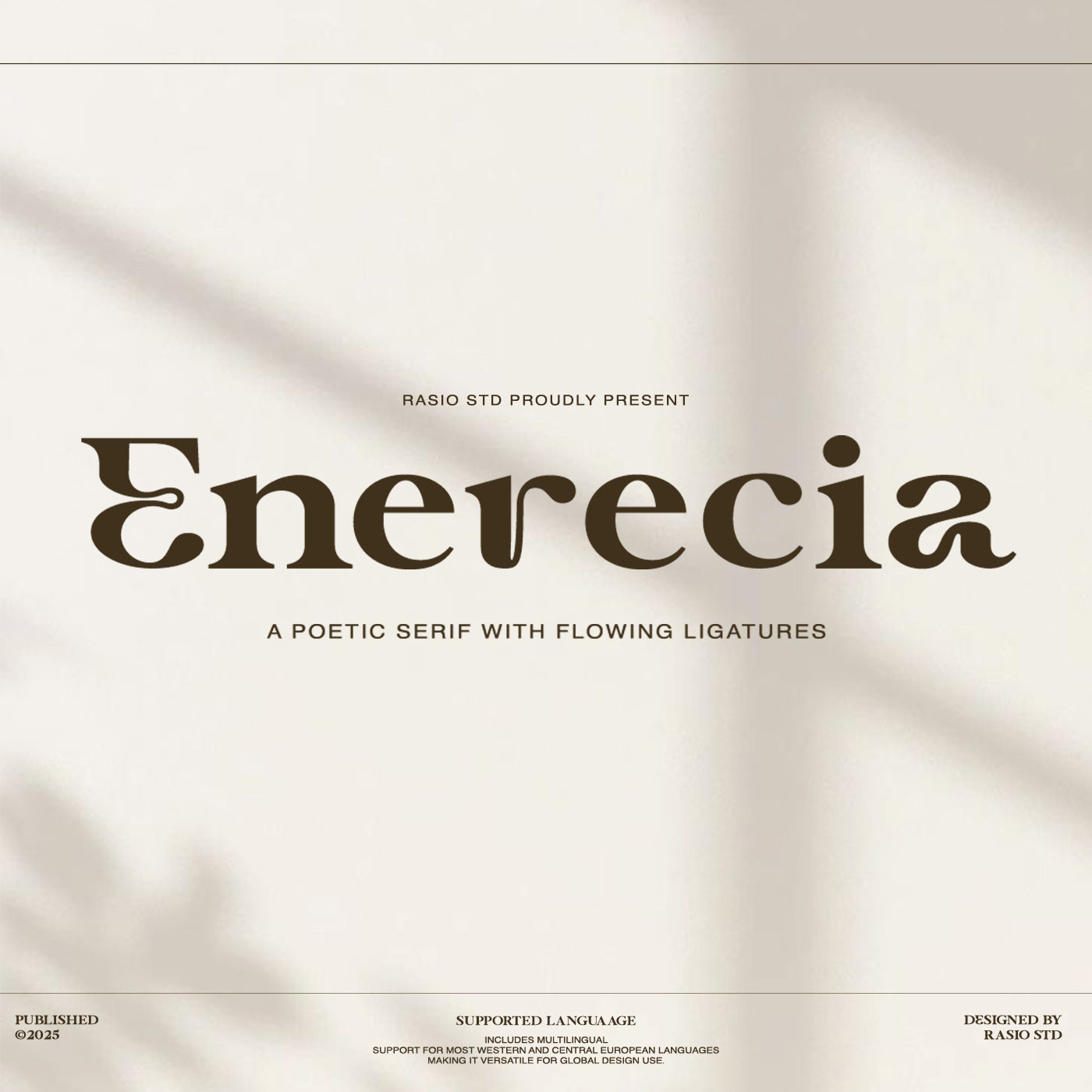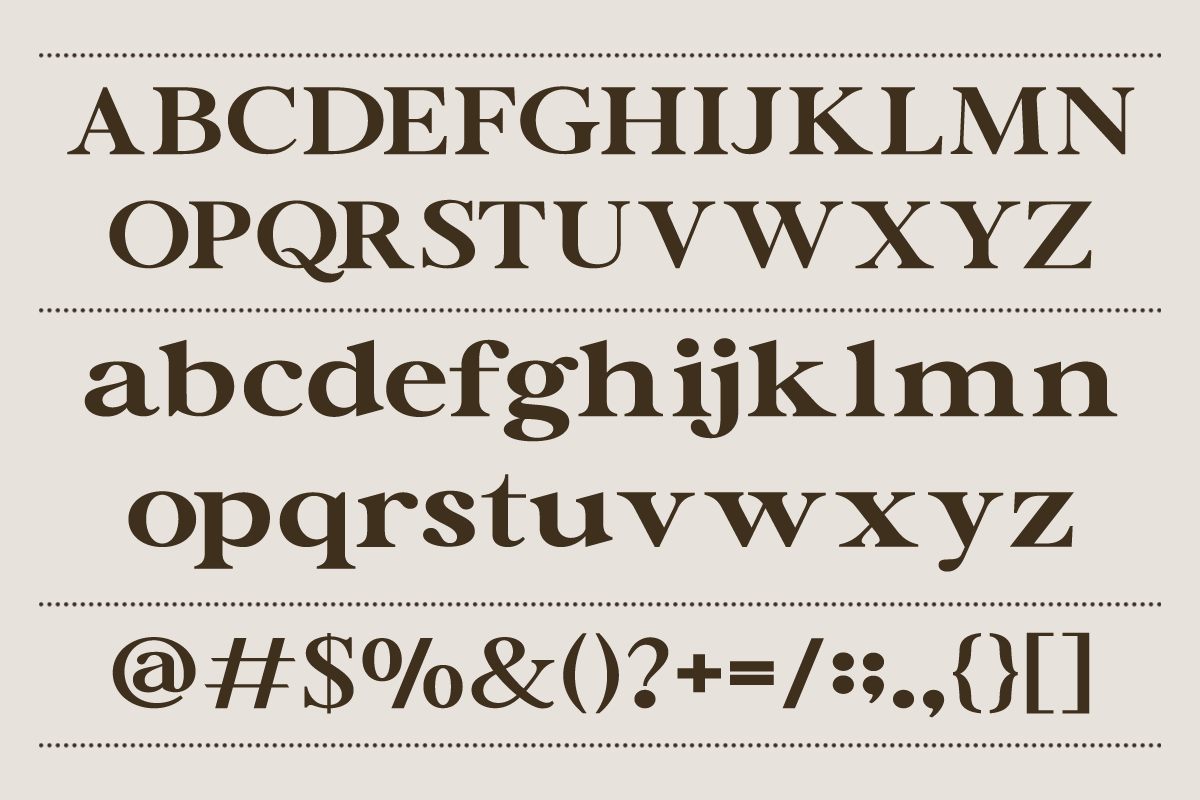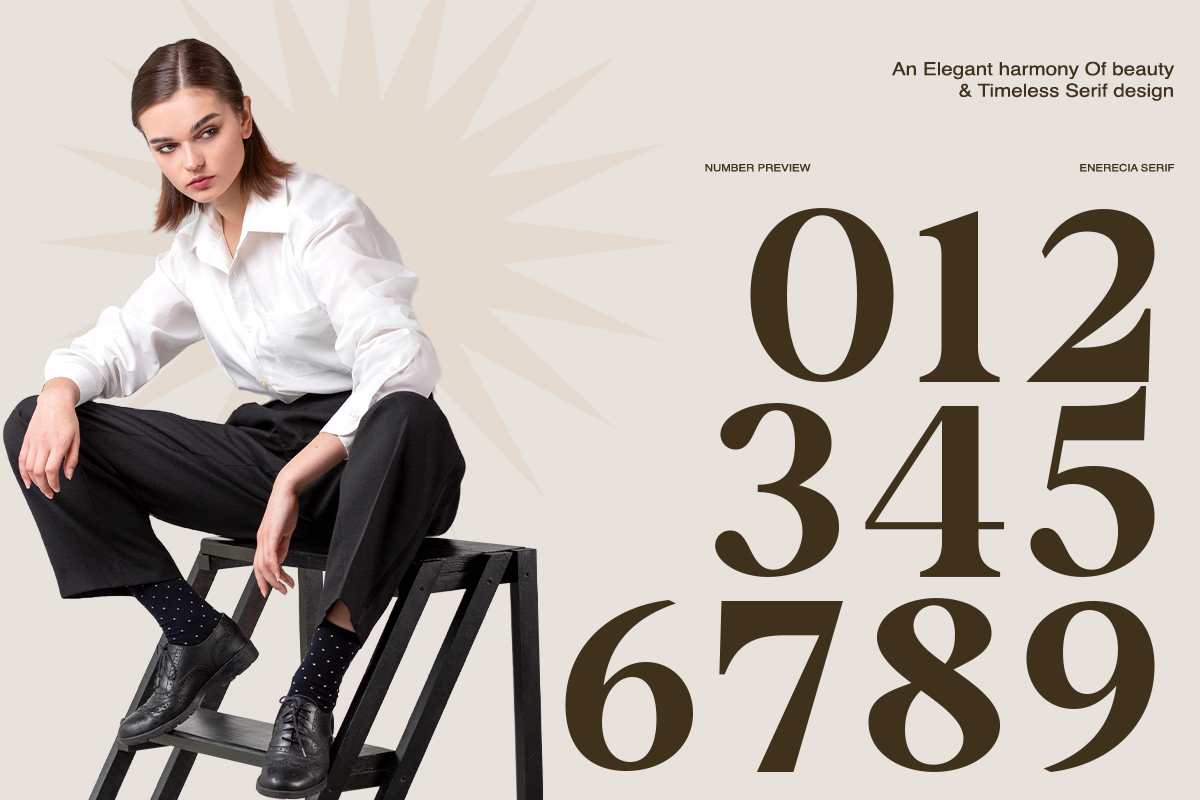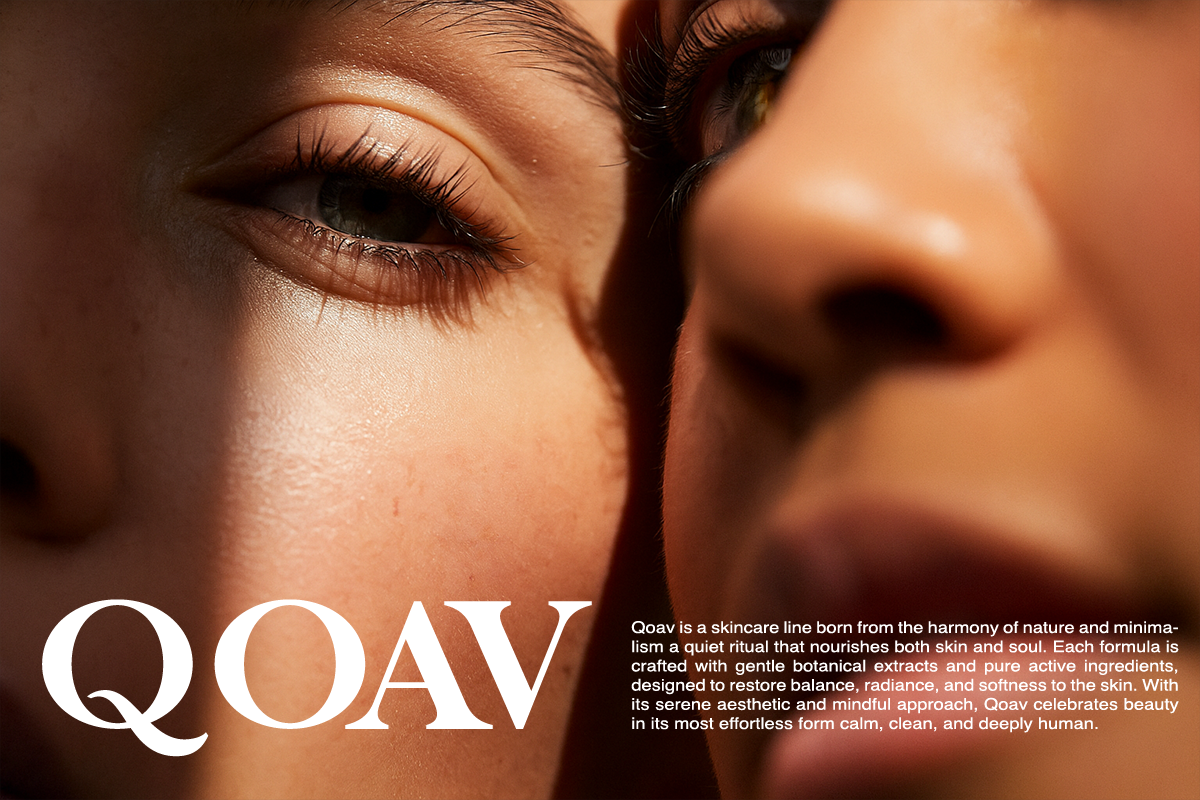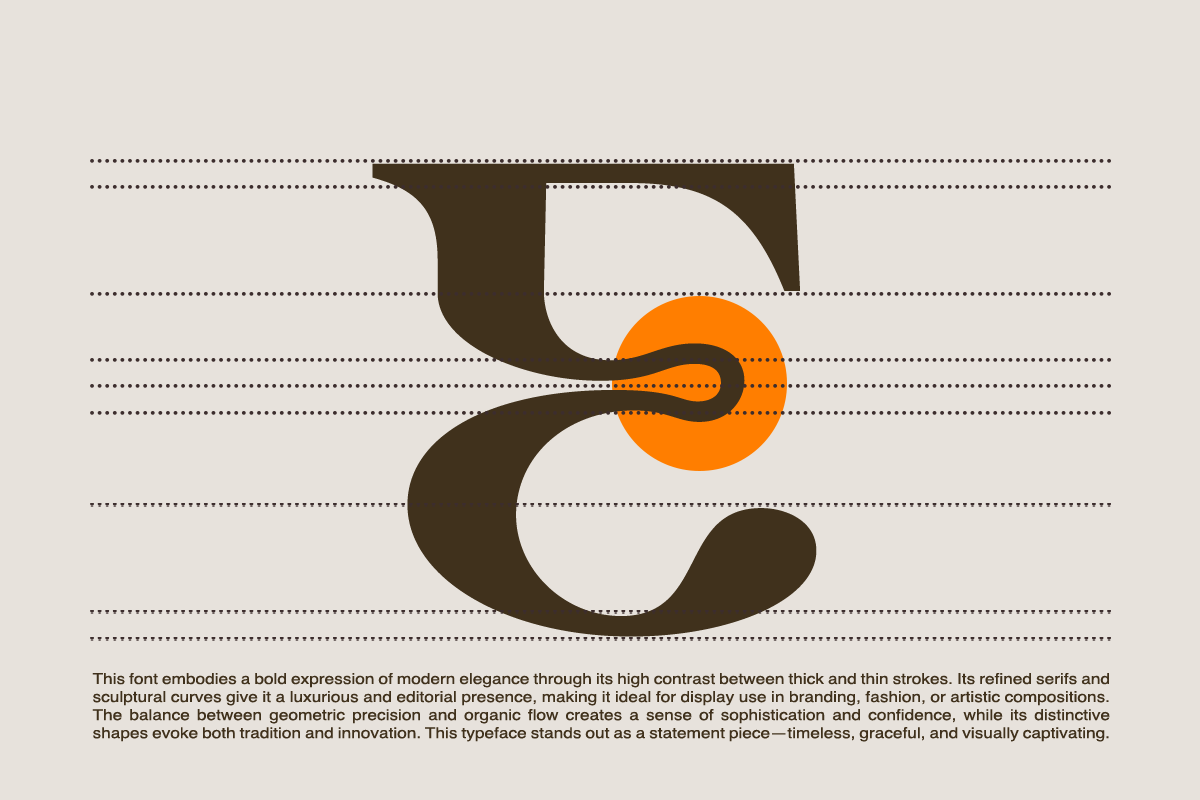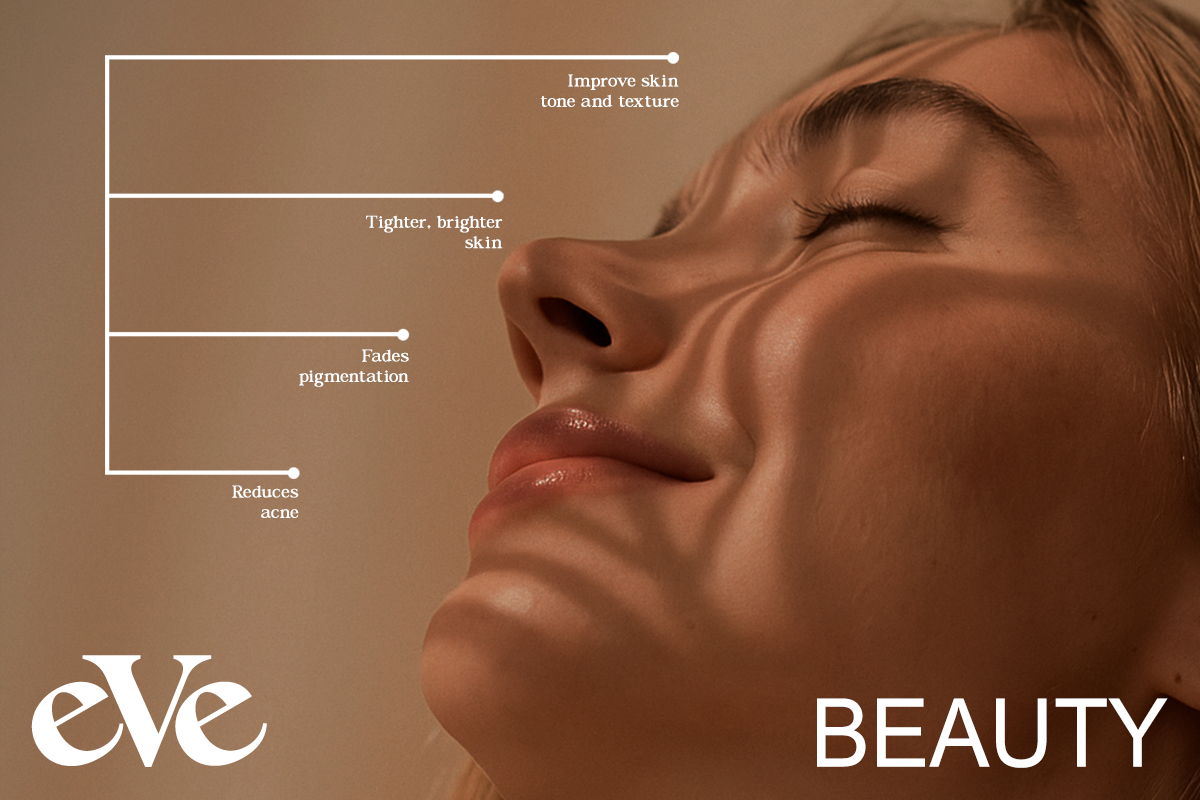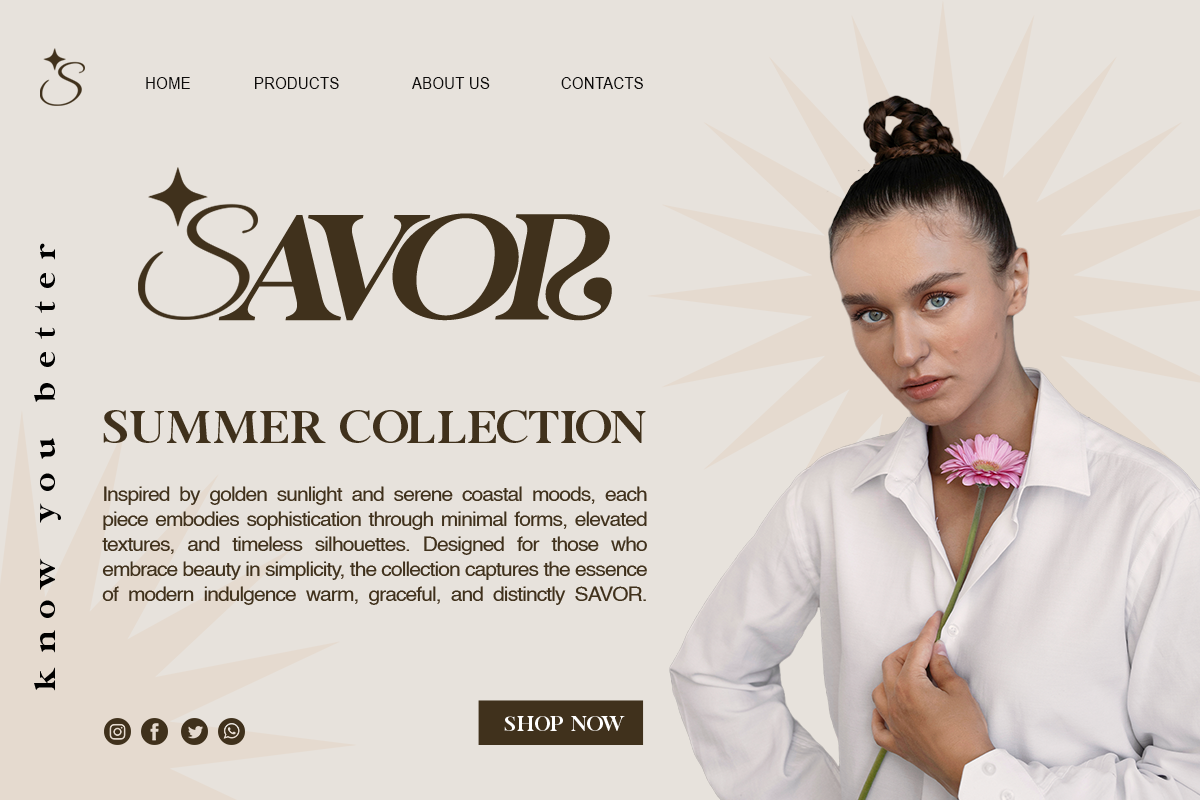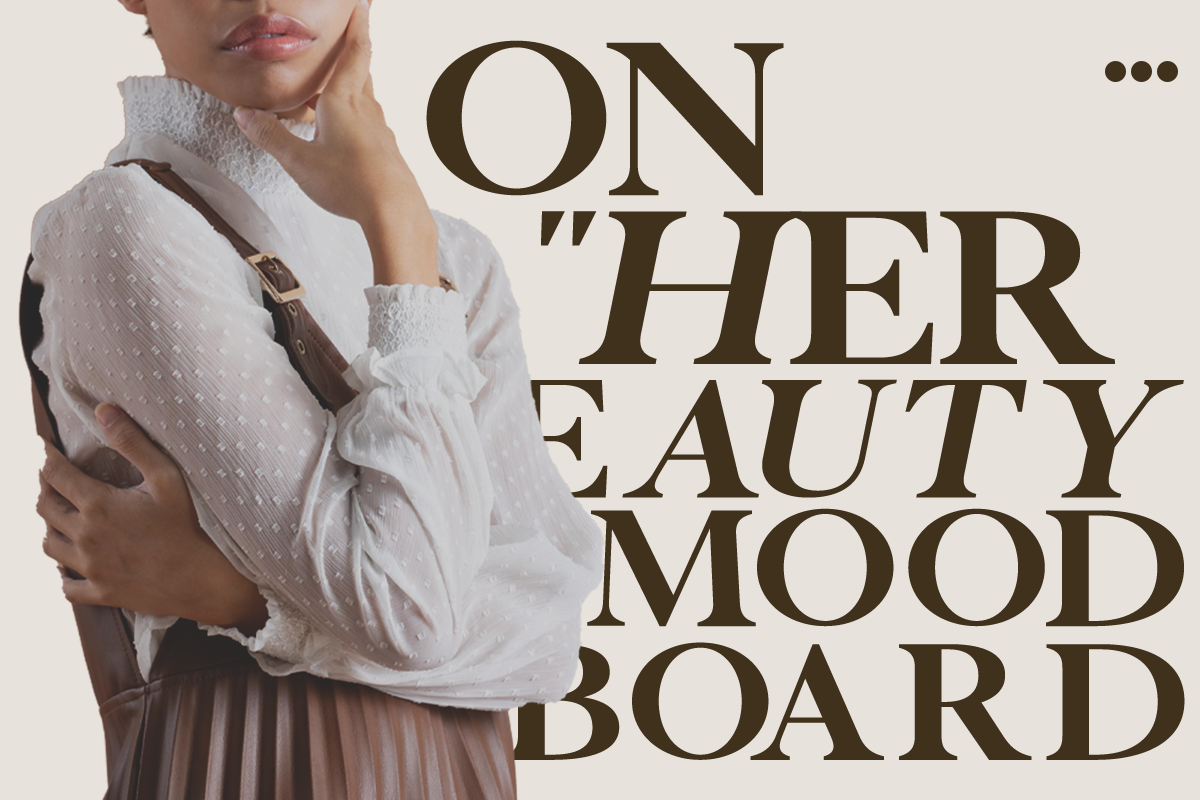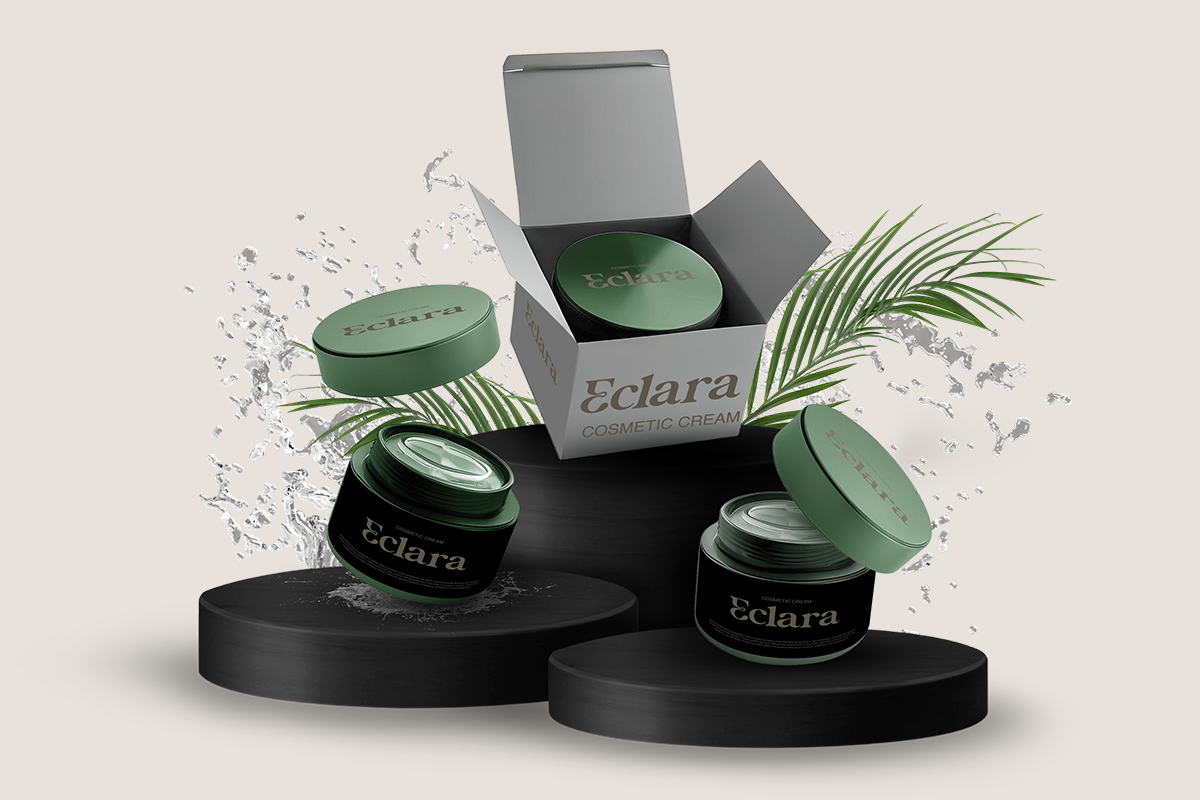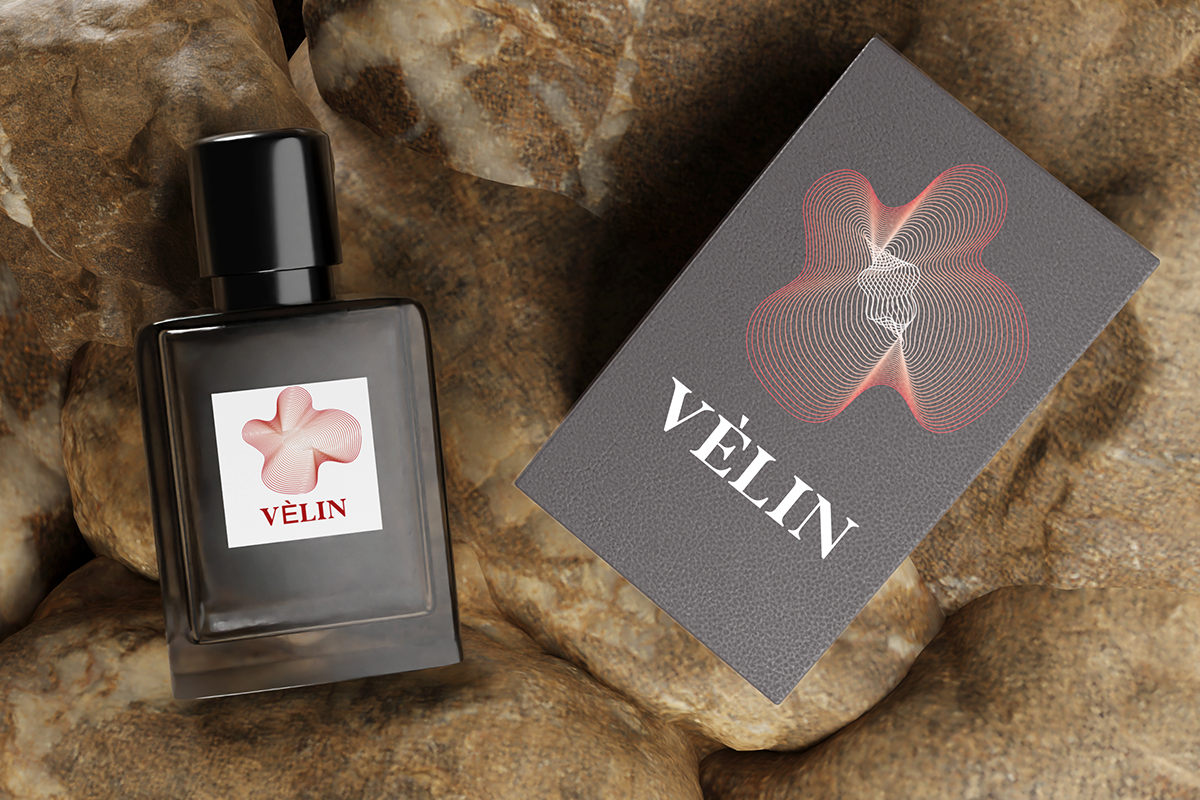
Enerecia Modern Elegant Serif Font
Enerecia is a poetic serif font that embodies modern sophistication with a touch of classic artistry. Its elegant ligatures, high contrast strokes, and sculptural curves create a timeless visual flow suited for editorial layouts, branding, fashion design, and refined packaging. The font balances geometric precision with organic rhythm, evoking harmony between strength and grace. Perfect for projects that seek both artistic expression and professional refinement, Enerecia delivers a luxurious typographic experience that feels effortlessly distinctive.
Relevance and Use Cases is perfect for luxury branding, editorial layouts, high-end packaging, art magazines, fashion campaigns, and refined invitations. Enerecia combines precision and emotion, making it an ideal statement font for projects that balance creativity with timeless elegance.
Enerecia is a serif font featuring ligatures, alternates, uppercase and lowercase characters, numerals, and punctuation, with multilingual support. It is available in TTF, OTF, and WOFF formats.